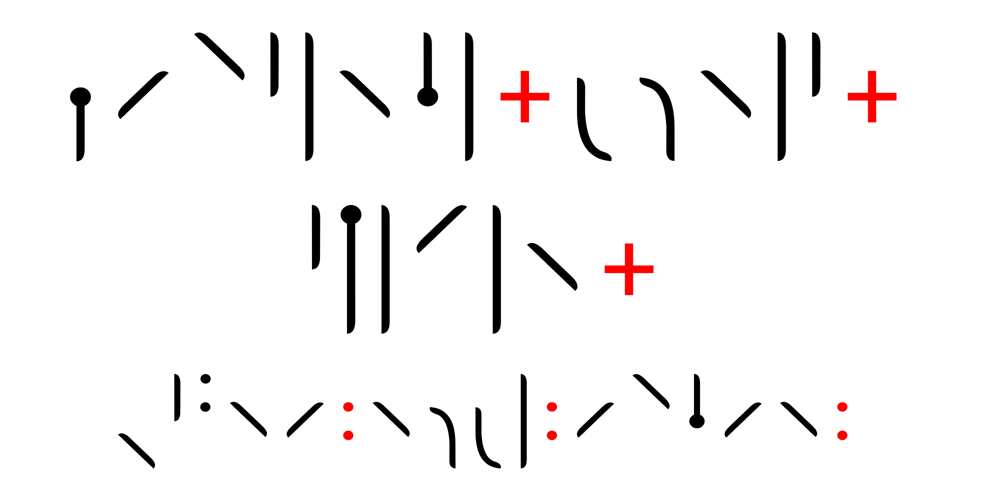
Ongunkan Staveless Halsinge Run Font Family was designed by Osman Nuri ALKAN and published by Runic World Tamgacı. Ongunkan Staveless Halsinge Run contains 1 styles and family package options. Staveless runes were the climax of the simplification process in the evolution of runic alphabets that had started when the Elder Futhark was superseded by the Younger Futhark. In order to create the staveless runes, vertical marks (or staves) were dropped from individual letters (or runes). The name “staveless” is not entirely accurate, since the i rune consists of a whole stave and the f, þ, k and the s runes consist of shortened main staves.Since their discovery on runestones at Hälsingland in the 17th century, staveless runes have also been known as the Hälsinge runes. This label is, however, misleading since staveless runes also appear in Medelpad, Södermanland, and the Norwegian town of Bergen.